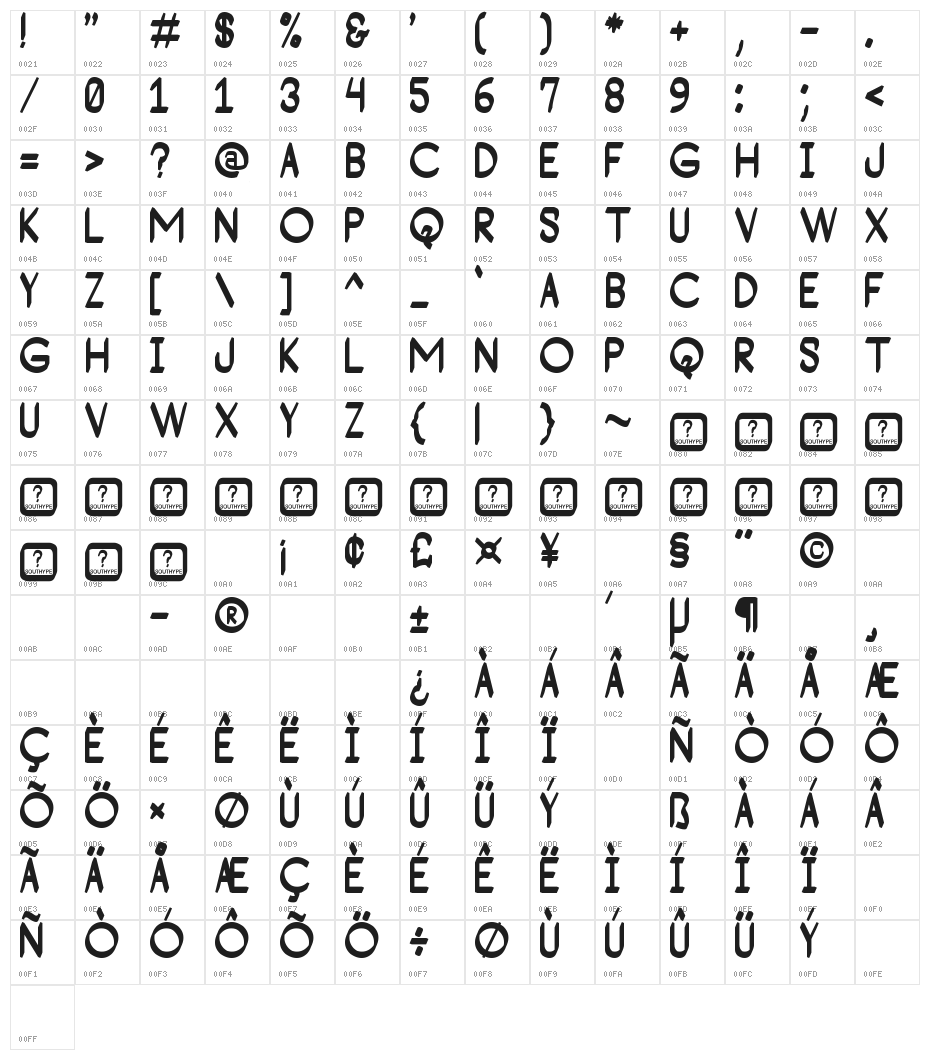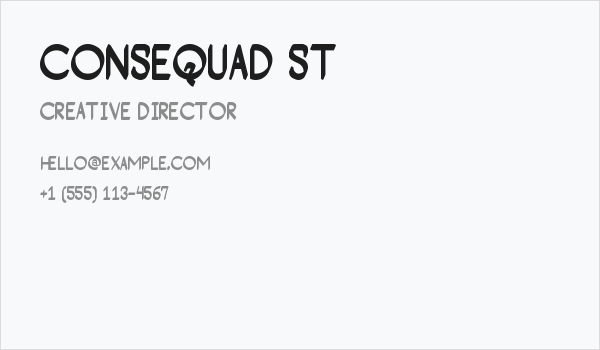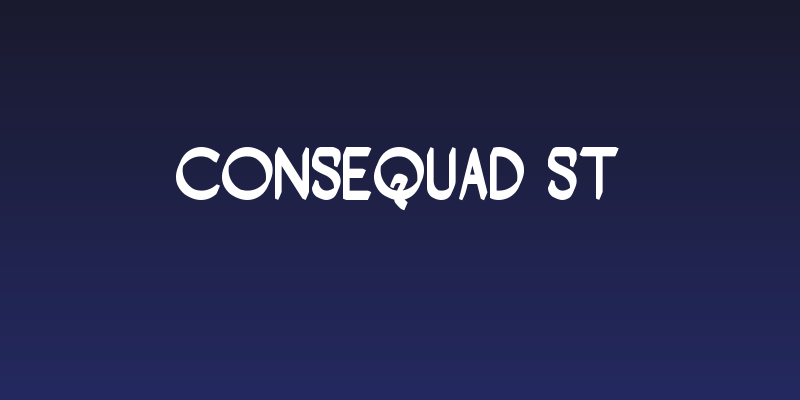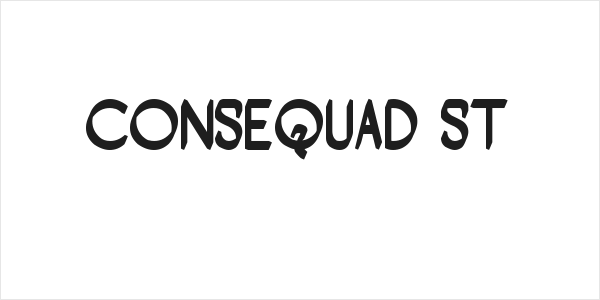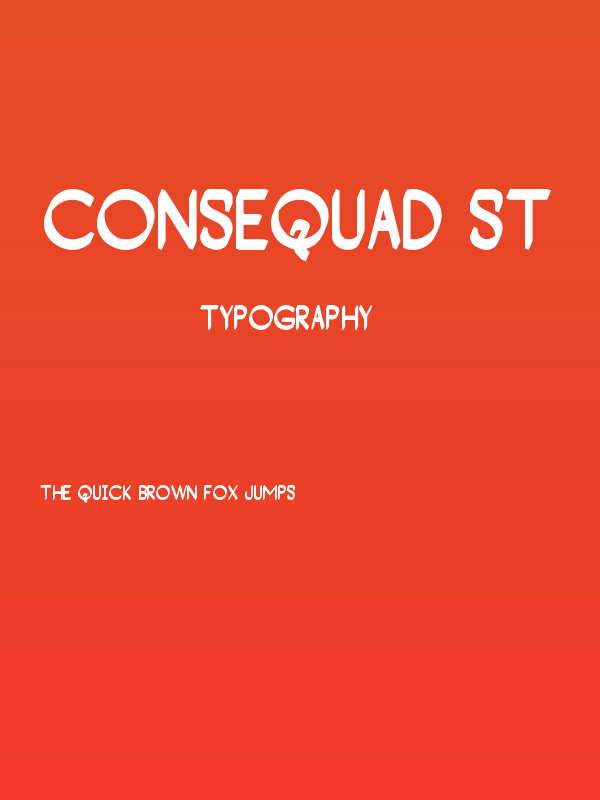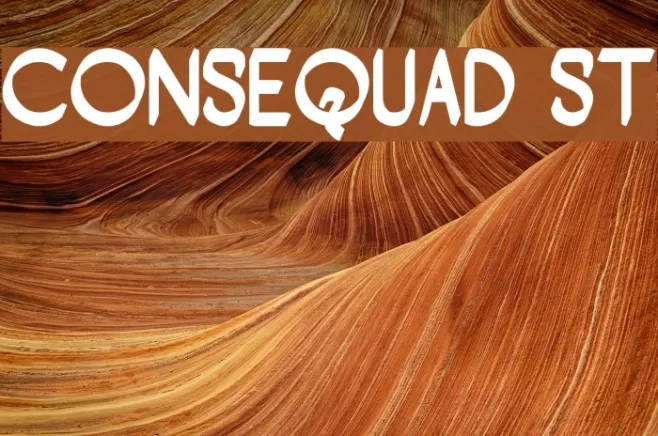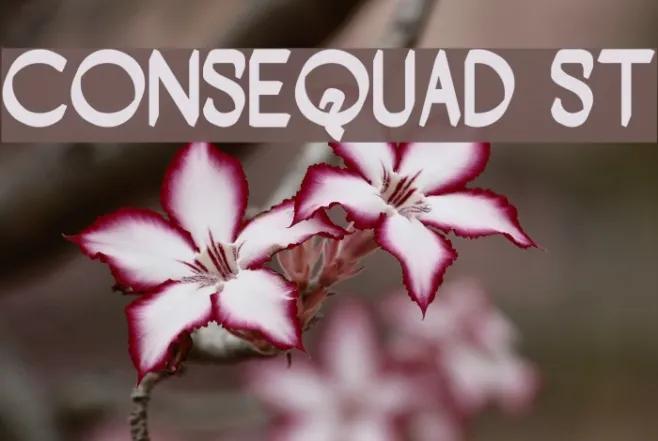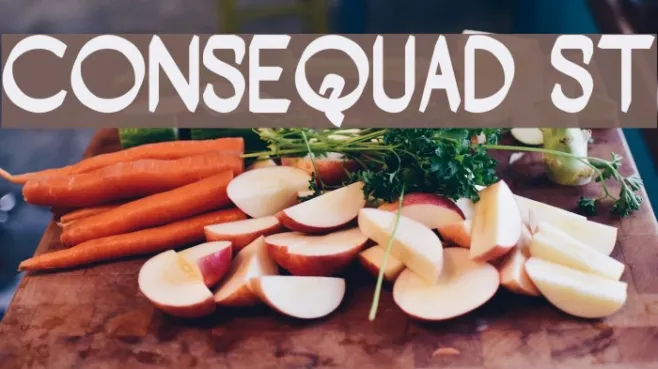
Consequad St Font
Consequad St Description
This font features a bold and dynamic style with a modern twist. The uppercase letters are characterized by sharp angles and a geometric structure, giving them a strong and assertive appearance. The numerals maintain this boldness, ensuring consistency across the typeface. Special characters are designed with the same angular precision, making them stand out. The overall design is clean and impactful, suitable for making statements in design projects.